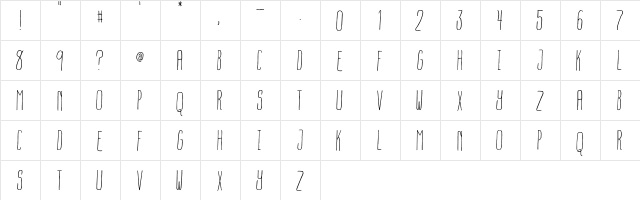
Over Atlantic City Regular
| Foundry | Skyhaven |
| Designer | =^_^= |
Design Context for Over Atlantic City Typeface
Over Atlantic City offers clean, dependable letterforms without strong stylistic allegiance, making it a practical choice for designers who need flexibility.
Pro Tip: Pair Over Atlantic City with a font of contrasting weight or personality to build a more expressive typographic hierarchy.